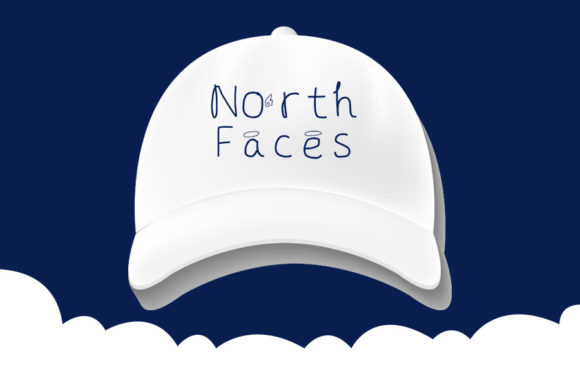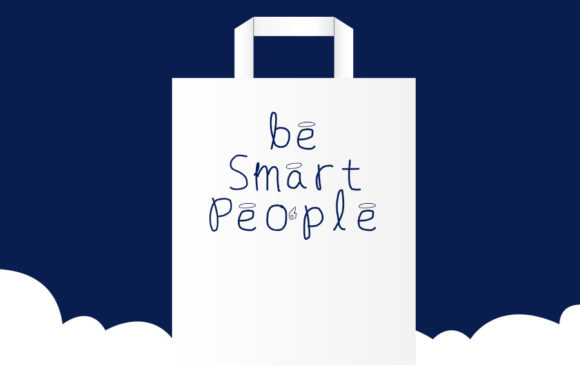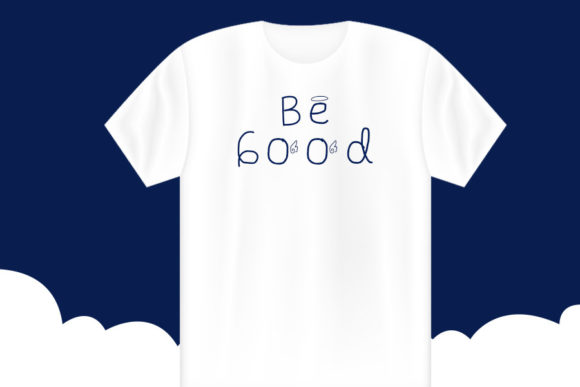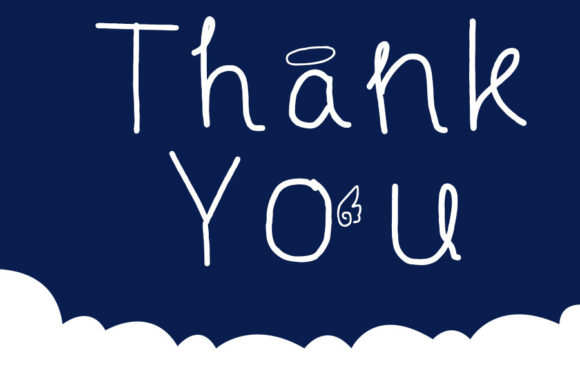
About Lady Angel Font
Lady Angel is a thin lettered and quirky script font, that can be used for all chalkboard quotes or teaching material! Its authentic look will add a personal and realistic feel to your designs.